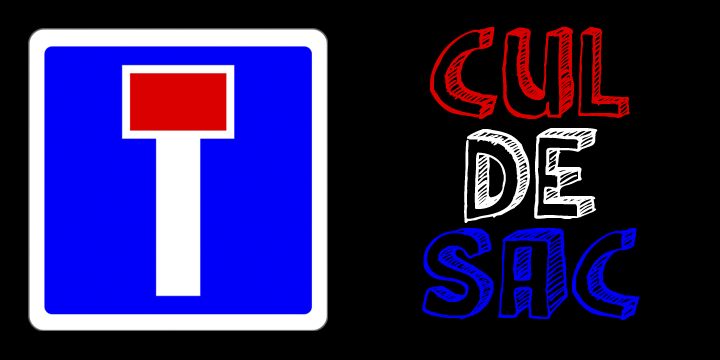
Cul De Sac Font is ideal for suburban real estate marketing, family neighborhood branding, residential community signage, local business advertising, suburban lifestyle campaigns, family-friendly restaurant menus, neighborhood newsletter designs, community event promotions, suburban retail communications, and residential development materials.
What makes Cul De Sac Font exciting is its warm neighborhood charm that perfectly captures the friendly community spirit and comfortable familiarity found in suburban residential living and local neighborhood culture. This typeface features approachable letterforms with residential proportions and family-friendly details that evoke the sense of belonging and community connection that comes from close-knit neighborhoods and suburban family life. The font's neighborly personality and residential authenticity make it ideal for community-focused brands seeking to convey comfort, familiarity, and the welcoming warmth that comes from genuine neighborhood relationships and suburban community values.
Cul De Sac Font family includes friendly weight variations and community-inspired alternatives that enhance its neighborhood appeal while providing design flexibility for residential and community applications. The font features neighborly ligatures, residential ornaments, and family-friendly character variations that create authentic suburban atmosphere for community and residential branding.
Real estate companies and local community businesses consistently choose Cul De Sac Font Free Download for projects requiring authentic neighborhood appeal and community credibility. The font's friendly character excels in applications targeting families, suburban residents, and community-minded individuals who appreciate genuine neighborhood values and local community connections. Whether you're designing for residential developments, neighborhood businesses, or community organizations, this welcoming typeface delivers the suburban authenticity and neighborhood warmth that resonates with audiences seeking genuine community belonging and the comfortable familiarity that defines suburban residential living and local neighborhood culture.